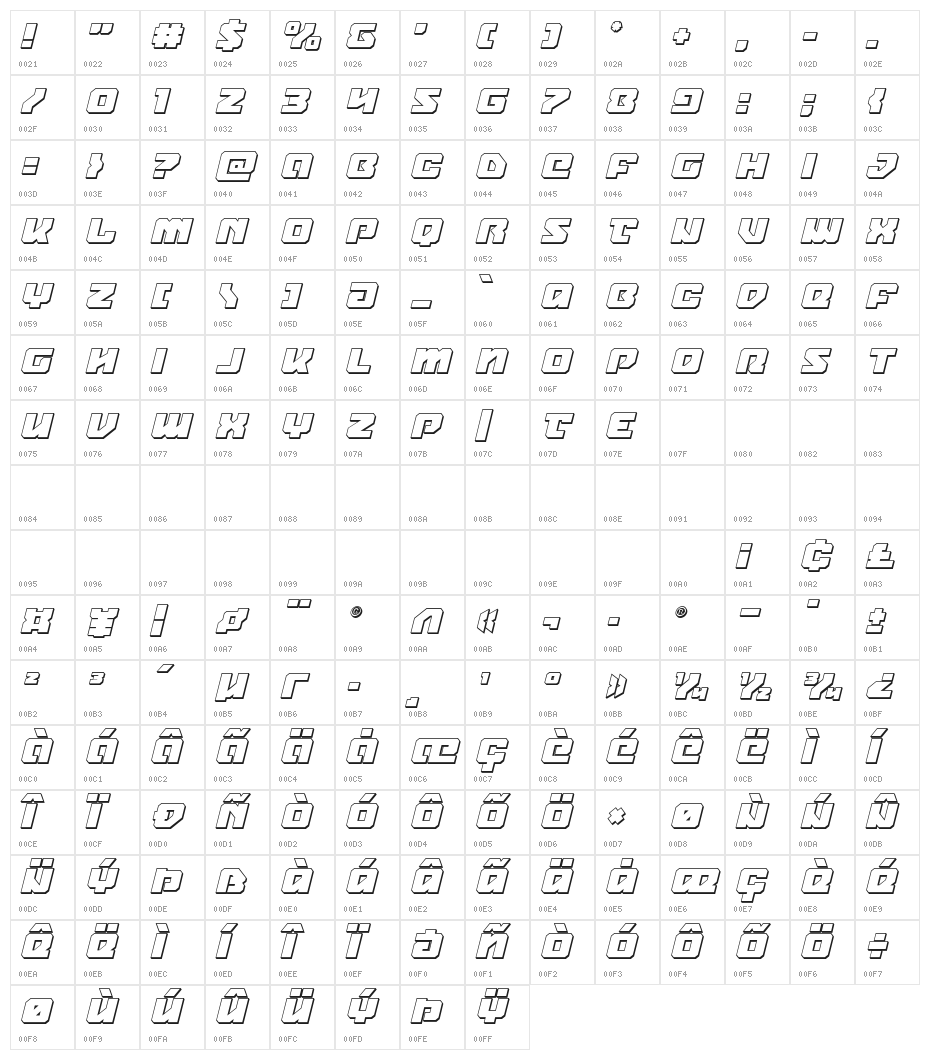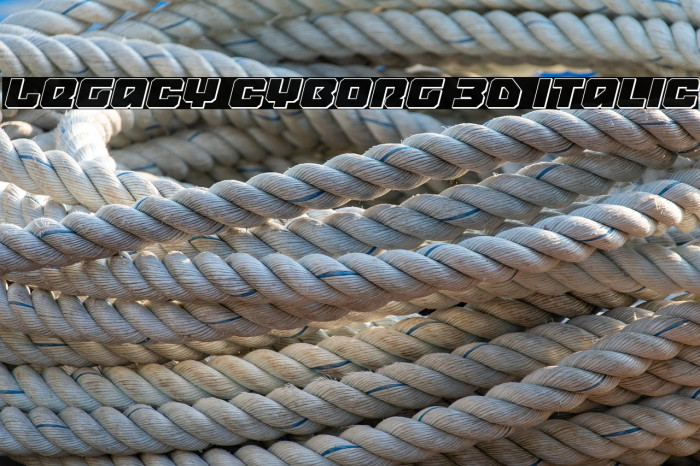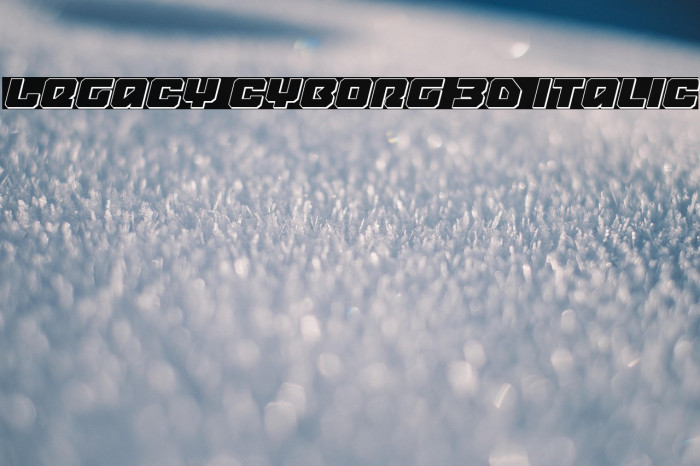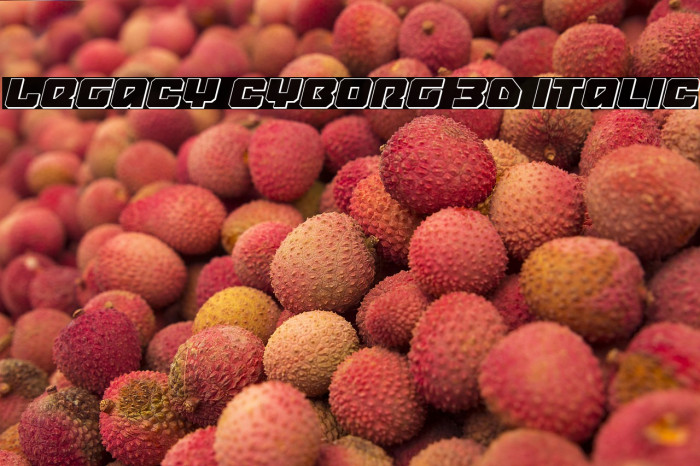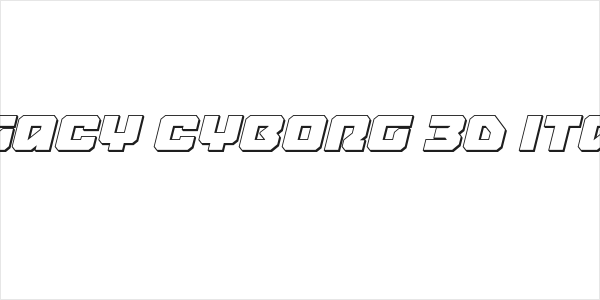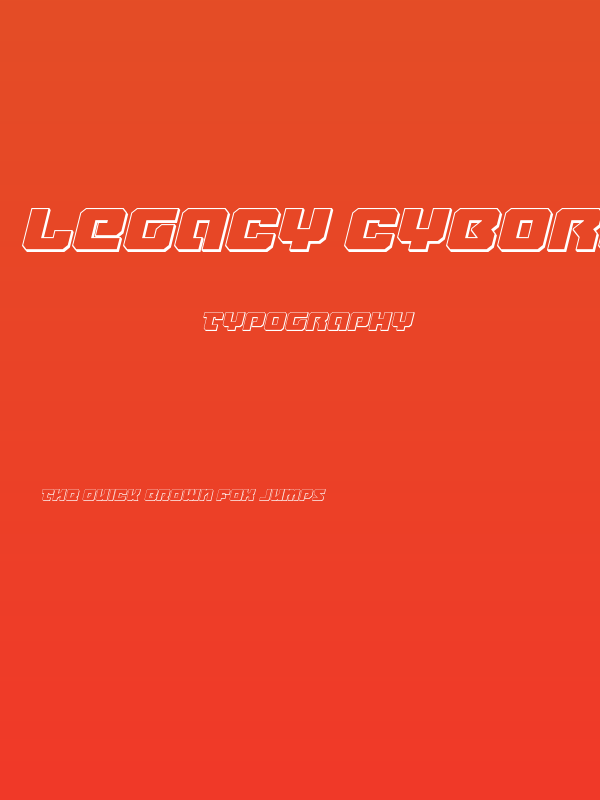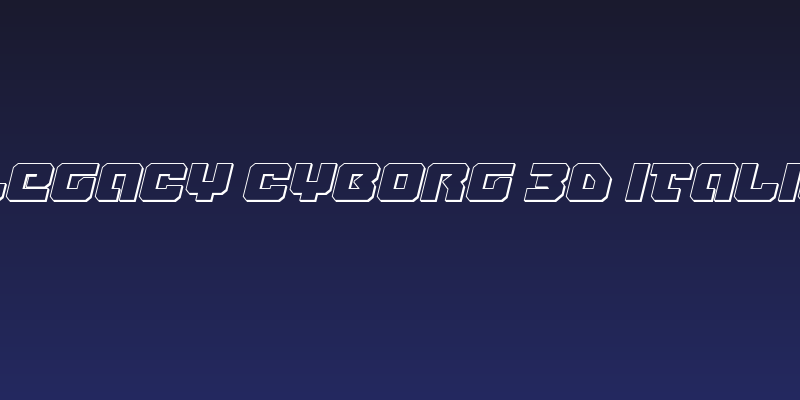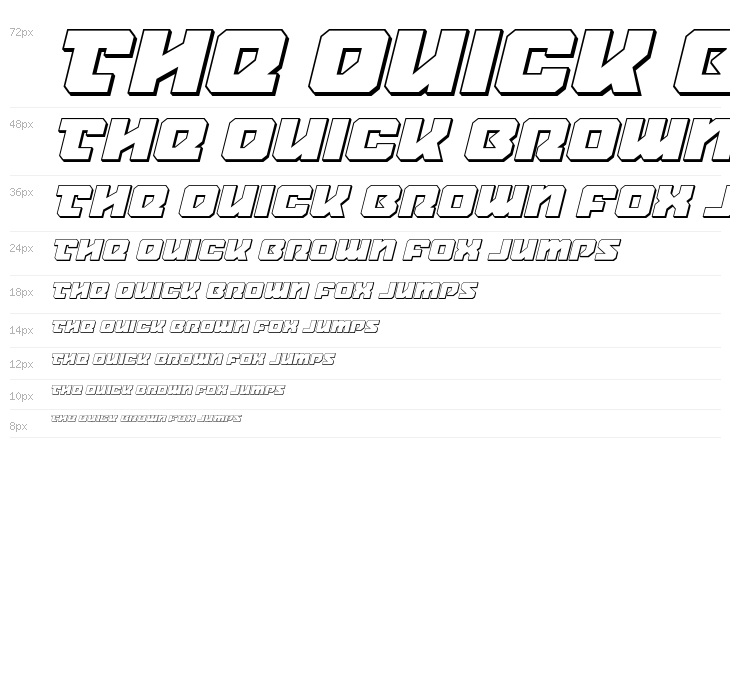
Legacy Cyborg 3D Italic Font
Legacy Cyborg 3D Italic Description
This font features a bold, futuristic design with a 3D effect that gives each character a sense of depth and dimension. The letters are angular and geometric, with sharp edges and a consistent italic slant that adds a dynamic, forward-moving feel. The uppercase and lowercase letters maintain a uniform style, while the numerals and special characters are designed to match the overall aesthetic. The font's outline style enhances its modern and tech-inspired appearance, making it ideal for projects that require a standout, eye-catching typeface.
| Proposed Projects | Ideal for sci-fi themed designs, video game titles, tech branding, and futuristic posters. |